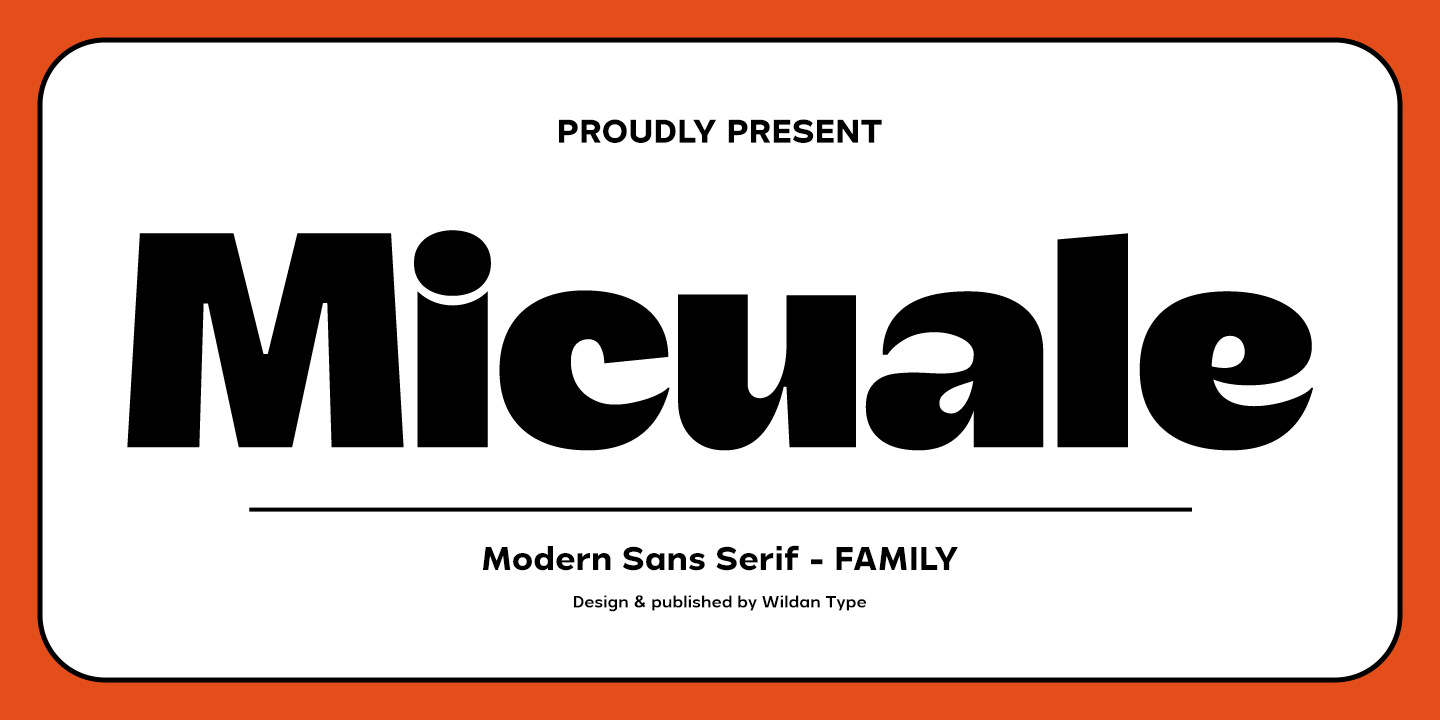
Micuale Font is perfect for creative design studios, artistic expression projects, contemporary art galleries, innovative advertising campaigns, modern cultural centers, experimental typography applications, avant-garde fashion brands, and sophisticated artistic communications.
What makes Micuale Font truly exciting is its distinctive ability to embody creative individuality and artistic innovation through uniquely crafted letterforms that challenge conventional typography while maintaining exceptional readability and sophisticated appeal. This captivating typeface features unconventional characteristics with artistic flair that instantly convey creativity, originality, and contemporary design sensibility, making it the perfect choice for brands and projects that celebrate artistic vision, embrace creative experimentation, and communicate with audiences who appreciate distinctive design aesthetics and innovative visual expression.
The Micuale Font family includes regular, light, bold, and experimental variations, complemented by artistic ornaments and creative alternates that enhance the innovative atmosphere, providing designers with comprehensive tools for creating distinctive brand experiences and artistic communications that resonate with design-conscious audiences seeking original creative expression and visual sophistication.
Creative agencies and artistic organizations will discover that Micuale Font Free Download transforms ordinary messaging into compelling artistic statements that establish immediate creative credibility among design-savvy audiences. This versatile typeface excels in both intimate artistic applications and bold creative campaigns, maintaining its distinctive character while delivering maximum visual impact across all contemporary contexts.
The font's artistically innovative construction demonstrates exceptional attention to both creative originality and functional excellence, with carefully balanced proportions that ensure striking presence while maintaining superior legibility in modern design environments. From gallery exhibitions to creative studio branding, this artistic typeface maintains its innovative appeal while providing the reliability needed for comprehensive creative communications. Contemporary brands appreciate how this font effortlessly communicates creativity, originality, and distinguished American innovative design excellence through superior artistically-inspired typography.